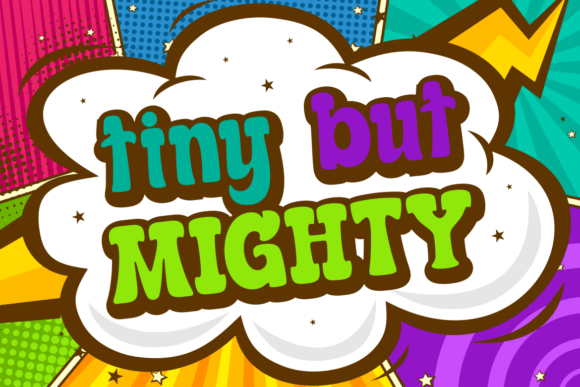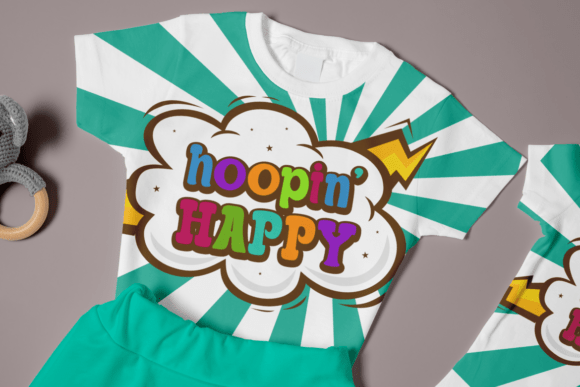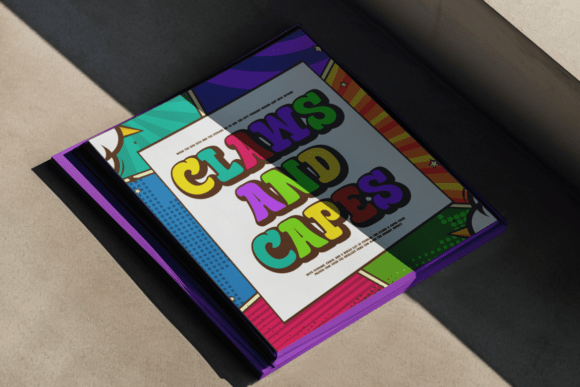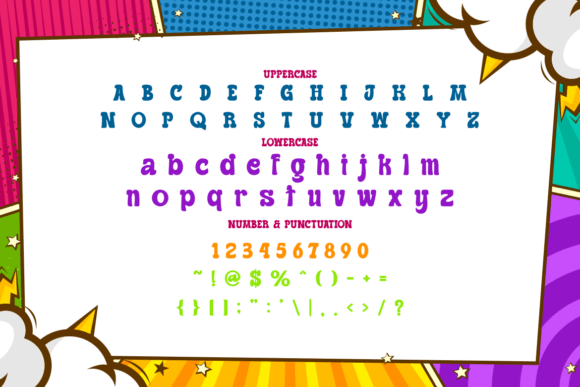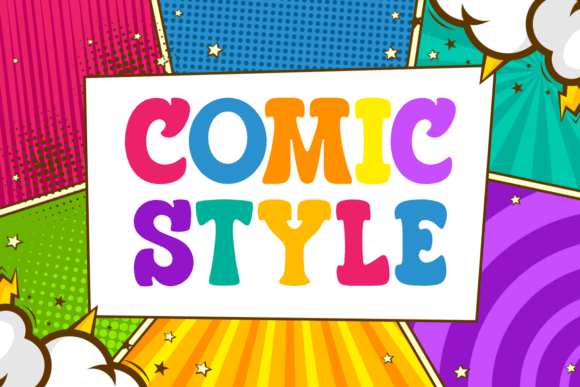
Introduction to Mega Boldy Font
Mega Boldy – Playful Bold Font is a dynamic and cheerful display typeface designed to spark joy and creativity across any visual platform.
This font features chunky, rounded letterforms with an exaggerated bounce, reflecting the energy of comic books, kids’ cartoons, and retro pop art Each character is crafted with smooth, bubbly strokes and subtly varied curves, offering a whimsical feel while retaining legibility at all sizes.
Key Features of Mega Boldy Font
Why Choose Mega Boldy Font?
Mega Boldy Font offers exceptional quality and versatility, making it a valuable addition to your design toolkit. Whether you’re creating for personal projects or commercial use, Mega Boldy Font delivers professional results.